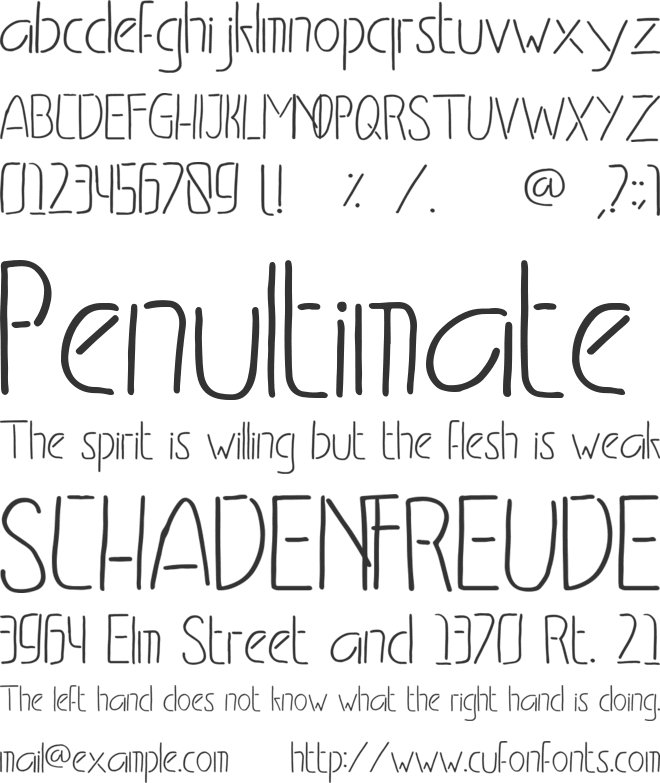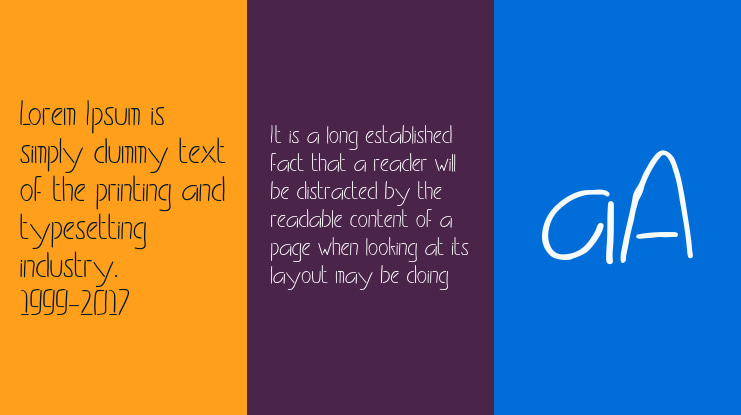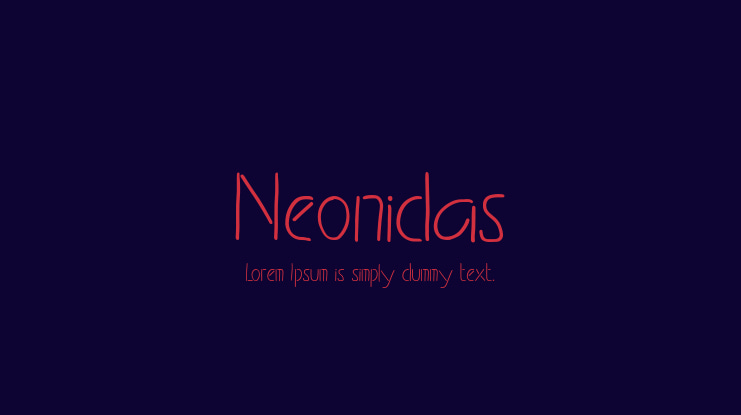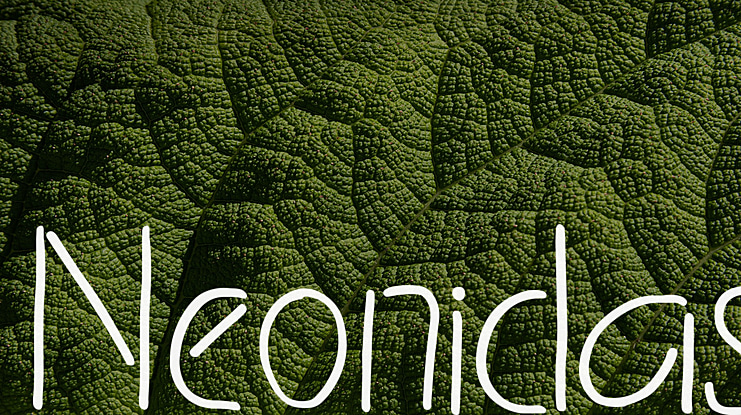
HandletterYean
Light of happiness often comes in the form of neon lights. Be free to feel joyous, move your body to party, give your brightest smile to everyone you meet. Use this font to share that sparks of happiness within you, for this font looks amazing for packaging, business card, invitation, posters, labels, and any kind of design. Get this font now.----------------This font is FREE for PERSONAL USE ONLY!For more info on COMMERCIAL LICENSE, contact us on  (mailto:)Download full version here: www.creativefabrica.com/product/neonidas/ref/235567/ (https://www.creativefabrica.com/product/neonidas/ref/235567/)Follow our Instagram to update more great fonts and information: www.instagram.com/handletteryean/ (https://www.instagram.com/handletteryean/)----------------Using this font for commercial purposes - whatever its form - WITHOUT PURCHASING COMMERCIAL LICENSE from us will incur EXTENDED LICENSE fees.BAHASA INDONESIA.Untuk agency ataupun Designer INDONESIA yang ingin menggunakan font ini perihal Komersial (iklan, poster film, percetakan, dll), harap menghubungi kami untuk mendiskusikan harga lisensi. Tenang saja, harga bersahabat :)Regards,HandletterYean